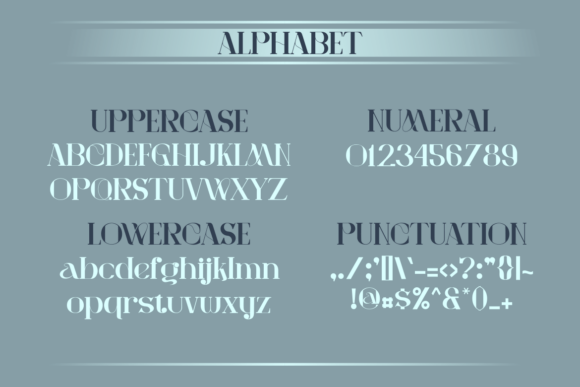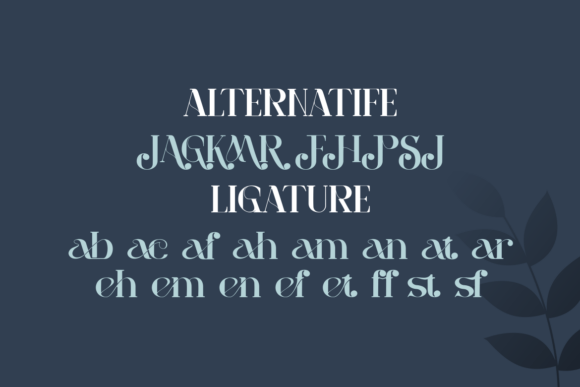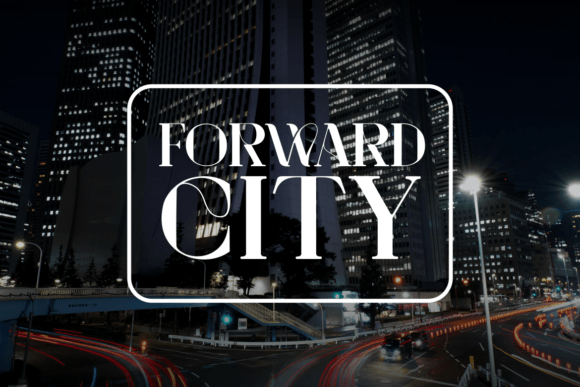
Introduction to Sanstive Font
The moment you’re searching for the perfect font to elevate your creative project can be both thrilling and overwhelming. Imagine you’re working on a high-end fashion brand’s new logo, and you need a font that exudes elegance and sophistication. That’s when you stumble upon the Sanstive Font – a sleek and contemporary serif font that perfectly blends classic serifs with modern aesthetics.
As a valuable resource for designers, the Sanstive Font is a game-changer for those seeking a high-quality font that can be used on a transparent background or as a standalone element. Its versatility makes it an ideal choice for luxury packaging, editorial layouts, and stylish logos. With its free download option, designers can now access this design resource without breaking the bank.
Key Features of Sanstive Font
- High-quality design resource suitable for creative projects, offering a unique and modern aesthetic.
- Unique characteristics include a sleek, sans-serif design and a wide range of glyph combinations, perfect for creating visually striking and engaging content.
Honest Review: Sanstive Font
- ✨ What works well: The Sanstive Font offers a high-quality design that can add a touch of sophistication to any project. Its sleek and modern look makes it perfect for contemporary designs.
- ✨ What works well: The font is highly versatile, suitable for a wide range of applications, from digital displays to print materials. Its transparent background allows for easy layering and customization.
Overall, I’m impressed with the Sanstive Font’s design and functionality. While it may have some limitations, its high-quality design and free download make it a great resource for designers on a budget.
Introduction to Sanstive Font
The Sanstive Font is a high-quality, free design resource ideal for creative projects. It features a unique, modern style that can be used to add a touch of sophistication to any design.
Tips for Getting the Most Out of Sanstive Font
For a transparent background, use the Sanstive Font with a PNG file or a design element with a transparent background. This will give your design a clean and modern look. To get the most out of Sanstive Font, use it in conjunction with other high-quality design resources.
Common Use Cases for Sanstive Font
The Sanstive Font is ideal for use in a variety of creative projects, including business cards, brochures, and websites. Its modern style and high-quality design make it a great choice for any project where you want to add a touch of sophistication.
Alternatives to Sanstive Font
Futura Font
Futura Font is a geometric sans-serif typeface ideal for creative projects that require a modern and sleek design. It features a high-quality design with a transparent background, making it perfect for use on various design resources. When to use: Use Futura Font for designs that require a sense of futurism and modernity.
Comparison to Sanstive Font: Futura Font is more geometric and modern compared to Sanstive Font, which is more rounded and elegant. Futura Font is a better choice for designs that require a sense of futurism, while Sanstive Font is better suited for designs that require a sense of elegance.